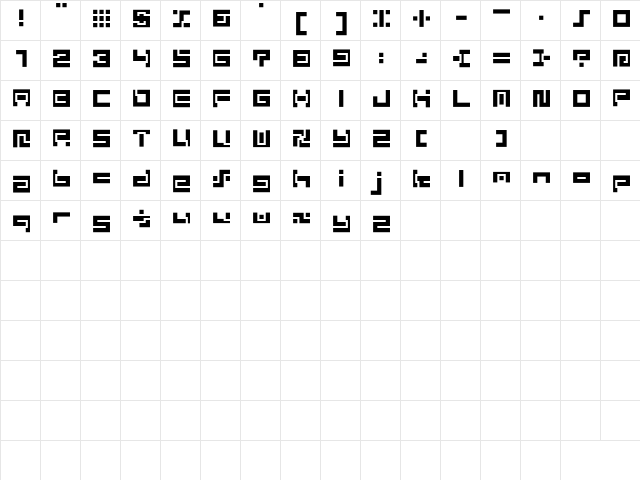
Complete D3 Superimposism Inline Regular glyph index. Displaying only characters natively supported by D3 Superimposism Inline Regular font.
D3 Superimposism Inline is built around its visual character rather than neutral utility - its distinctive forms are designed to make an impression at display sizes.
Suited to editorial headers, event branding, and any context where the font itself is part of the message.
Font Pairing: Pair with a clean neutral sans-serif for body copy to let D3 Superimposism Inline's character lead without overwhelming the composition.
Pro Tip: Use D3 Superimposism Inline exclusively at display sizes - it was designed to be seen, not read at length. Let a neutral companion handle body copy.